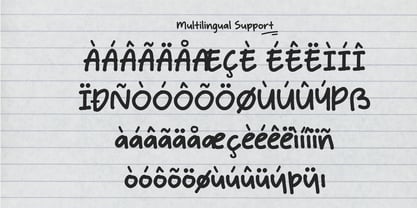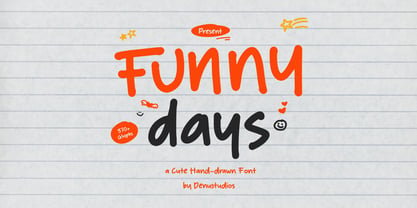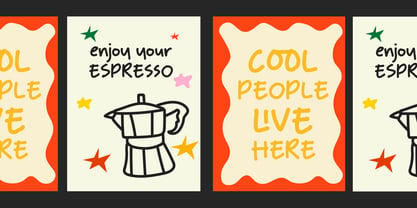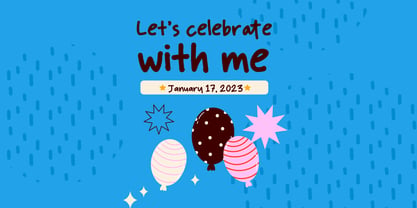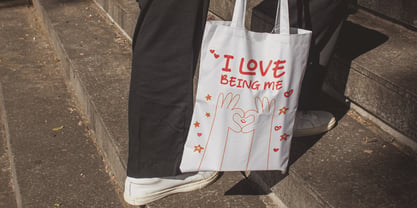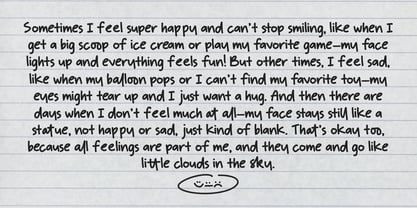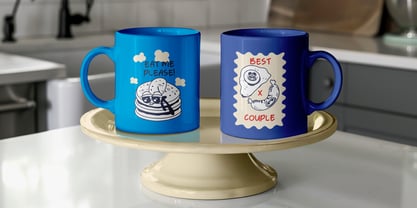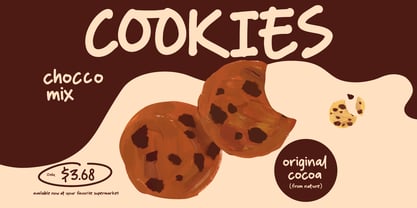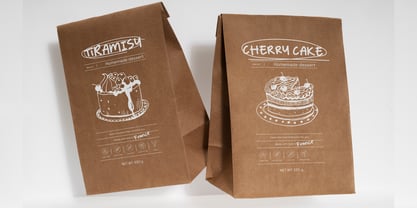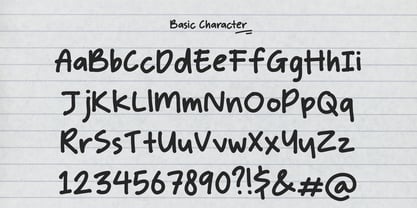
Funny Days
by Denustudio
The Funny Days Font Family was designed by Dede Nugraha and published by Denustudio. Funny Days contains 2 styles and family package options. More about this family
Funny Days | Cute Hand Drawn Font, from Denustudios, suitable for any projects such as: logos, branding projects, homeware designs, product packaging, mugs, quotes, posters, shopping bags, t-shirts, book covers, name card, invitation cards, greeting cards, label, photography, watermark, special events, and all your other lovely projects that need Cute Hand Drawn Font a taste.
• Regular and Italic
• Alternate and Ligature
• Fonts include multilingual support